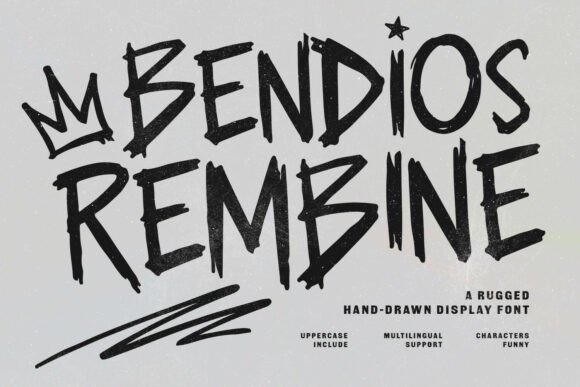
The Power of Bendios Rembine: Unleashing Creative Expression
I still remember the design project that led me to discover Bendios Rembine. I was working on a branding campaign for a local craft brewery, and I needed a font that would capture the raw energy and playfulness of their brand. After hours of scouring font libraries and online marketplaces, I stumbled upon Bendios Rembine. Its bold, hand-drawn strokes and rugged texture immediately caught my attention, and I knew I had found the perfect fit.
So, what makes Bendios Rembine so special? Here are a few things I love about this font:
• ✨ Authentic, hand-drawn feel: Bendios Rembine’s unique character shapes and aggressive lines give it a distinct, handcrafted aesthetic that’s hard to find in digital fonts.
• ✅ High-contrast presence: This font is designed to make a statement, with bold strokes and a rugged texture that demand attention.
• 💥 Perfect for creative branding: Whether you’re working on a logo, social media content, or a website, Bendios Rembine adds a touch of raw energy and playfulness to any design.
Of course, no font is perfect, and Bendios Rembine has a few quirks to keep in mind:
• 🤔 Limited legibility at small sizes: Due to its bold, expressive strokes, Bendios Rembine can be difficult to read at smaller font sizes. Use it for headlines and titles, but consider a more legible font for body text.
• ⚠️ May not be suitable for formal or professional designs: Bendios Rembine’s rugged, hand-drawn aesthetic may not be the best fit for formal or professional designs, such as corporate reports or academic papers.
Bendios Rembine was inspired by the raw energy and creativity of street art and graffiti. Its designer, a passionate artist and typographer, sought to capture the essence of urban expression in a digital font. The result is a bold, expressive typeface that’s perfect for creative branding and design projects.
What is Bendios Rembine? Bendios Rembine is a bold, hand-drawn display font characterized by its authentic, rugged texture and energetic feel.
What is Bendios Rembine best used for? Bendios Rembine is perfect for creative branding, social media content, and impactful headlines.
Is Bendios Rembine available in different weights or styles? Currently, Bendios Rembine is available in a single weight, but its OpenType features and glyphs offer a range of stylistic options.